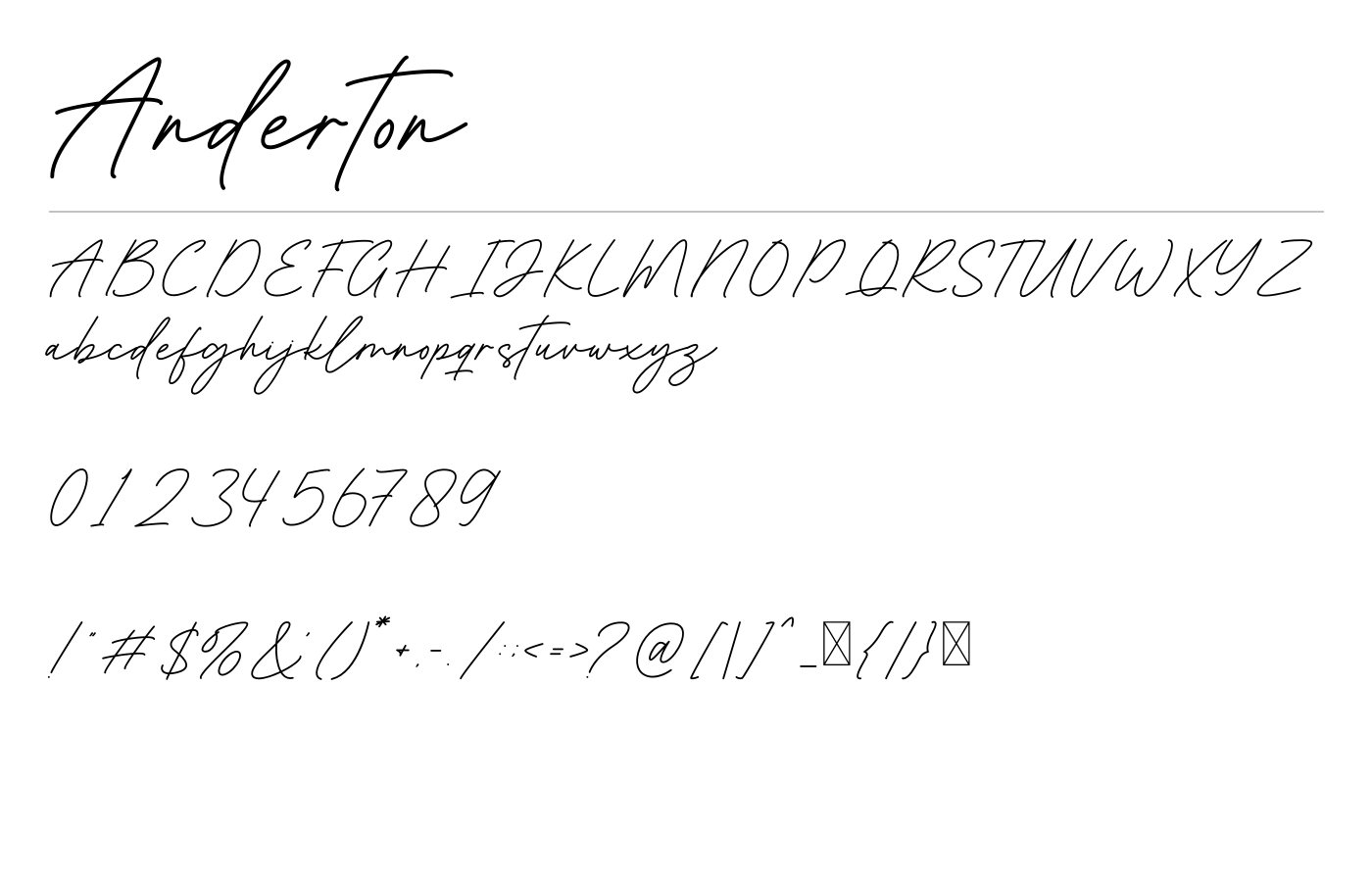
Anderton is a delicate and elegant handwritten script font with a light weight and flowing strokes that mimic natural penmanship. Its slender, slightly slanted letterforms with tall, narrow characters give it a refined and personal feel, making it ideal for invitations, branding, and any design seeking a sophisticated, approachable touch. This font works beautifully in contexts that require a graceful yet modern aesthetic, such as fashion editorials, logos, and stylish web headlines.
Anderton Font
About Anderton Font